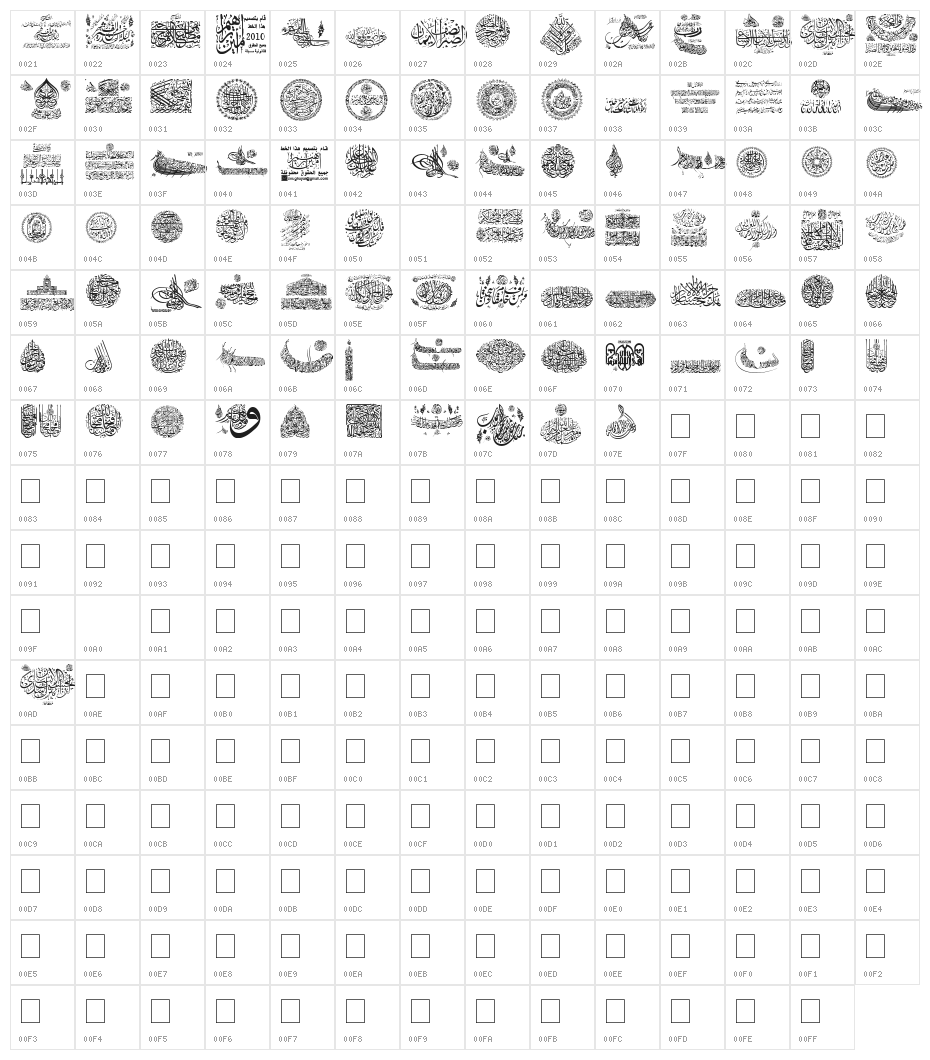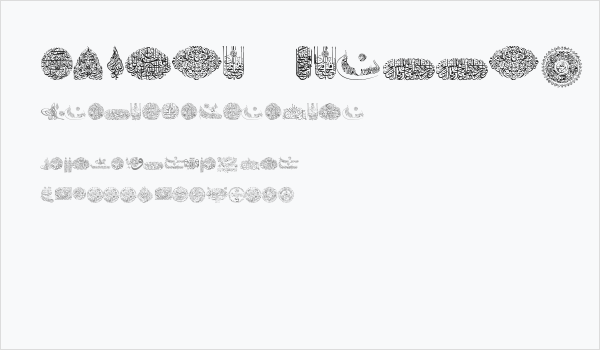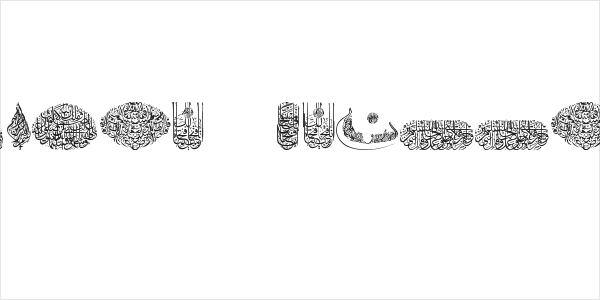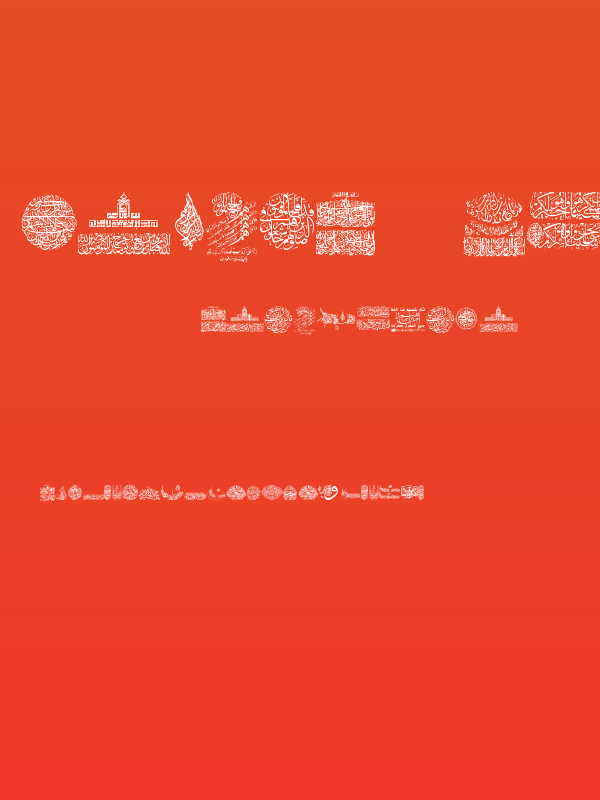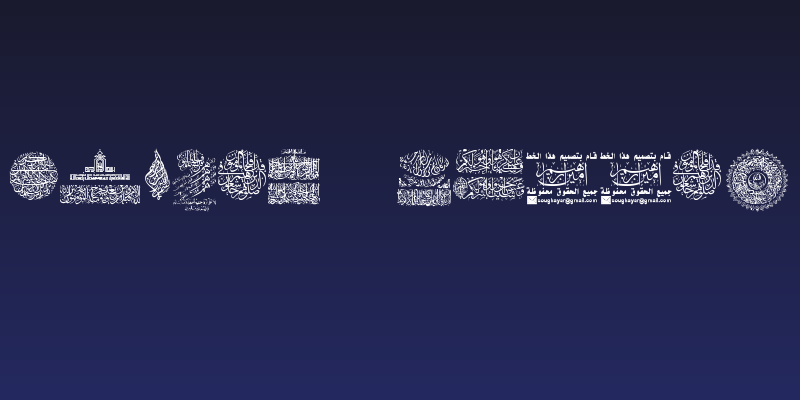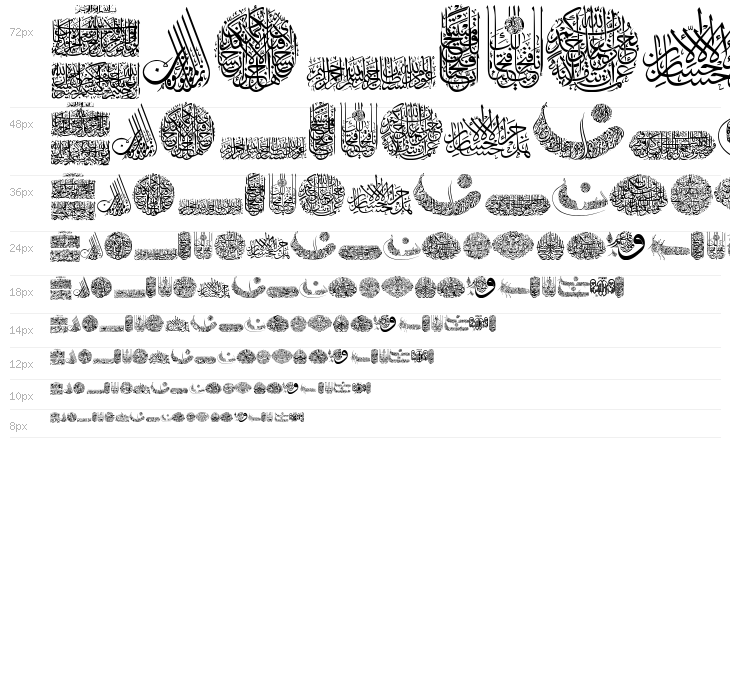
My Font Quraan 6 Font
My Font Quraan 6 Description
Highly decorative Arabic calligraphic glyphs, each character formed as an intricate emblem or medallion, featuring dense, ornate script and complex flourishes. The style is reminiscent of traditional Islamic art, with each glyph resembling a unique piece of calligraphy rather than a standard letterform.
| Overall Style | Decorative, Traditional, Islamic |
| Use Case | Logos, Art prints, Certificates, Religious materials, Display headlines |
| Proposed Projects | Religious publications, ceremonial documents, Islamic art posters, decorative certificates, cultural branding. |